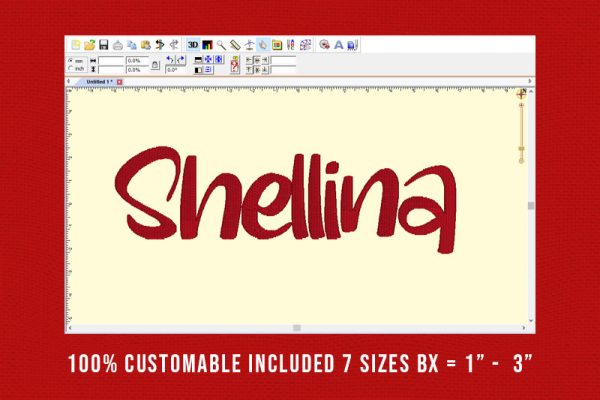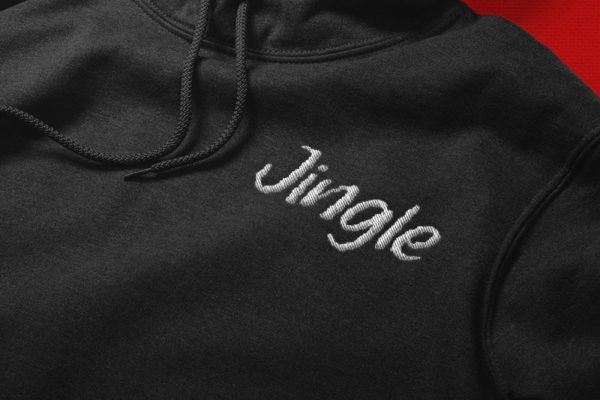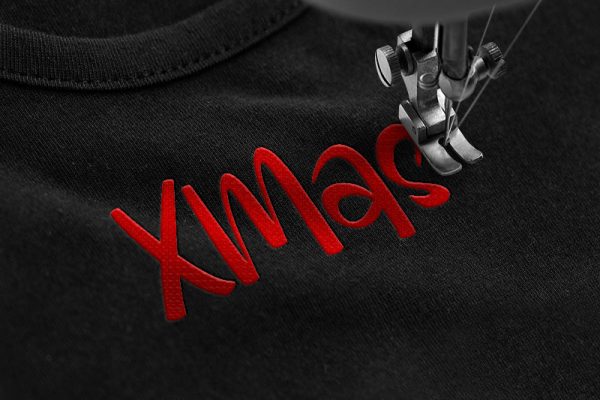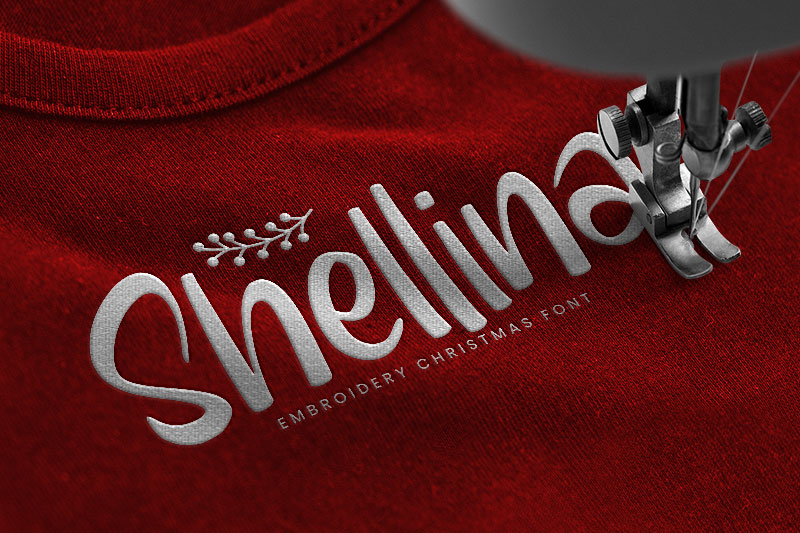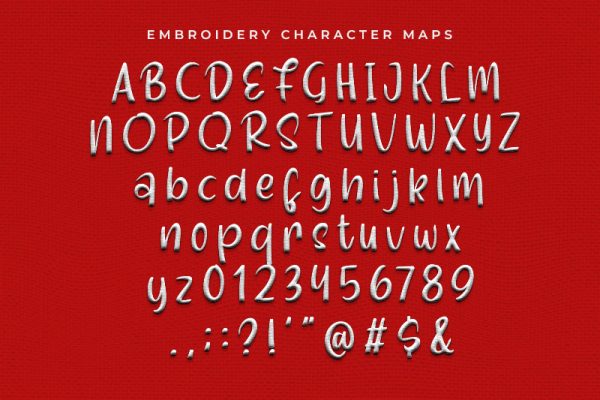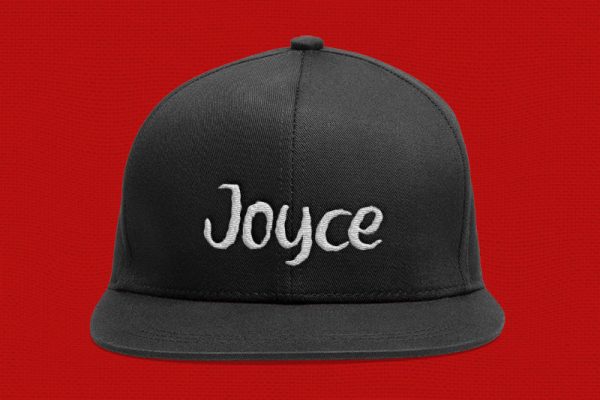
Shellina Embroidery font is a new creation that is created as attractive as possible by adding a variation of the Christmas embroidery font. This font is here to provide another reference for those who are interested in using an embroidered font for Christmas celebrations. Shellina font has been made very neat and clean by not adding additions to all letters. The shape of his body was being hauled and blunt at some of the ends. This font is high readability. The appearance of this font is perfect when embroidered with small embroidery.
Shellina Embroidery font is one of the best Christmas fonts that are advisable to be combined with several products such as t-shirts, jackets, Christmas costumes, hoodies, and hats. This font can be bordered as wall hangings and Christmas hats made of cloth.
Shellina embroidered font creates a soft, simple, and straightforward impression of the product it features. This impression makes Shellina the font that must be the top choice when choosing a Christmas font. This font belongs to legible fonts. It is beautiful when combined with the right colors and decorations.